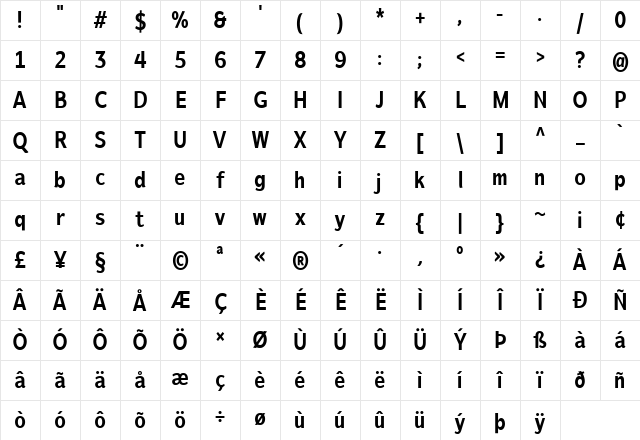
LT Veritas Cond Bold
Foundry: LyonsType
Designer: Daniel Lyons
Design Context for LT Veritas Cond
LT Veritas Cond is a composed and adaptable typeface that performs quietly and consistently across a wide range of design contexts. Its bold stroke weight gives it real presence on the page. Its narrow stance lets it pack a punch even in space-constrained designs.